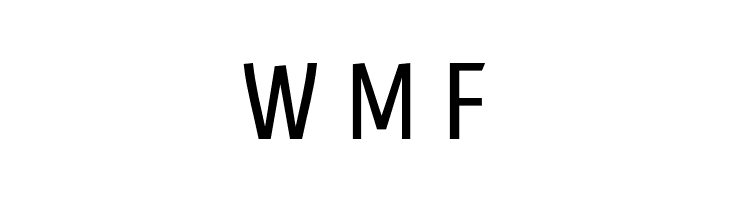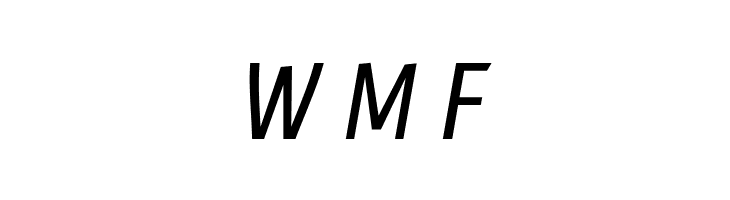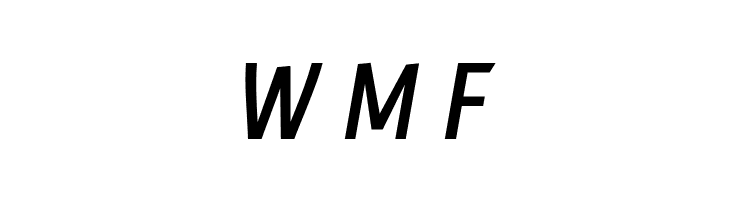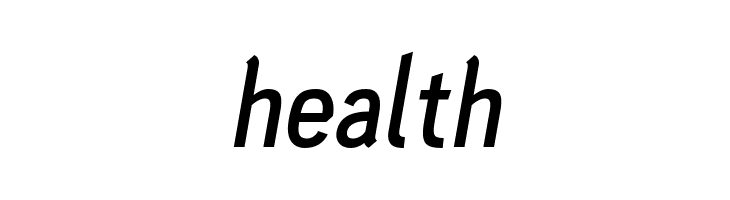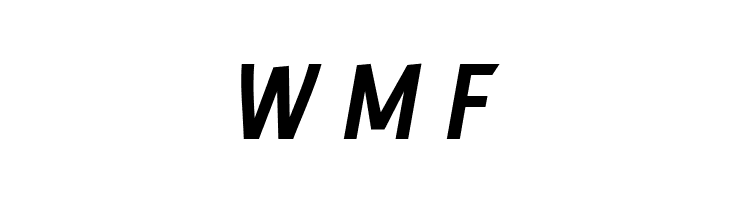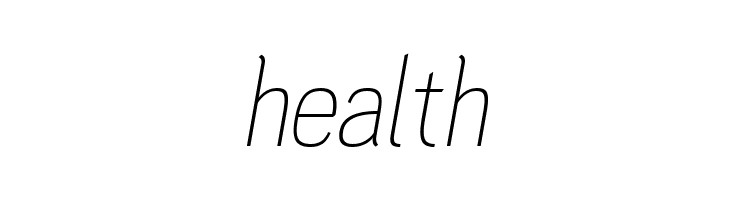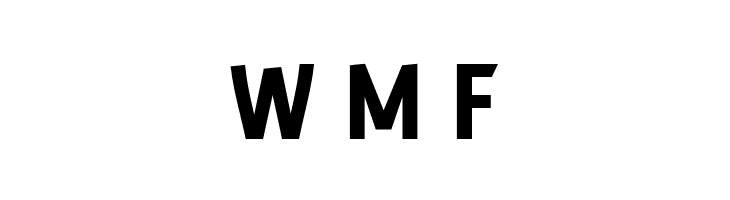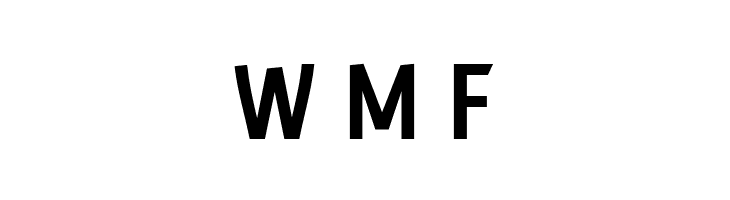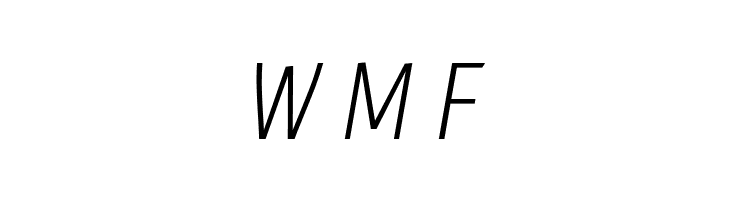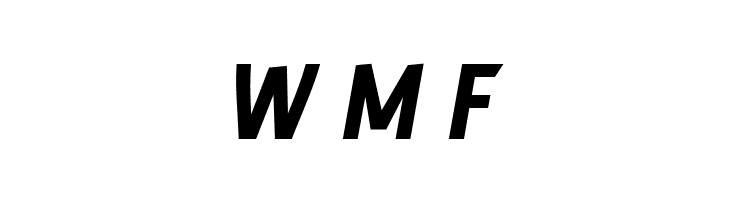
PC Navita Bold Font
A bold, modern sans-serif font with strong, clean lines.
PC Navita Extra Bold Font
A bold, robust font with thick strokes and a slightly condensed style.
PC Navita Regular Font
A modern sans-serif font with clean, geometric letterforms.
PC Navita Book Font
A clean, modern sans-serif font with uniform stroke width and balanced spacing.
PC Navita Semibold Font
A clean, modern sans-serif font with a semi-bold weight and consistent stroke width.
PC Navita Light Font
A modern, light sans-serif font with a clean and minimalistic design.
PC Navita Thin Font
A thin, modern sans-serif font with a clean and elegant design.
PC Navita Semibold-Oblique Font
A modern, semi-bold oblique font with sleek, dynamic characters.
PC Navita Bold-Oblique Font
A bold, oblique font with a modern and dynamic style.
PC Navita Extra Bold-Oblique Font
A bold, oblique font with a modern and dynamic style.
PC Navita Regular-Oblique Font
A modern sans-serif font with an oblique slant, offering a sleek and dynamic look.
PC Navita Book-Oblique Font
A modern, oblique sans-serif font with clean lines and a dynamic slant.
PC Navita Light-Oblique Font
A sleek, light, and oblique font with a modern and elegant style.
PC Navita Thin-Oblique Font
A sleek, thin, and oblique font with a modern and minimalistic design.
PC-Navita-Personal-Use-Only-Regular Font
A modern sans-serif font with clean, geometric letterforms and excellent readability.